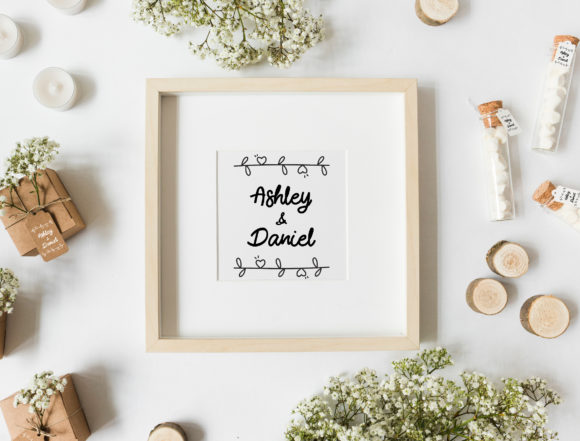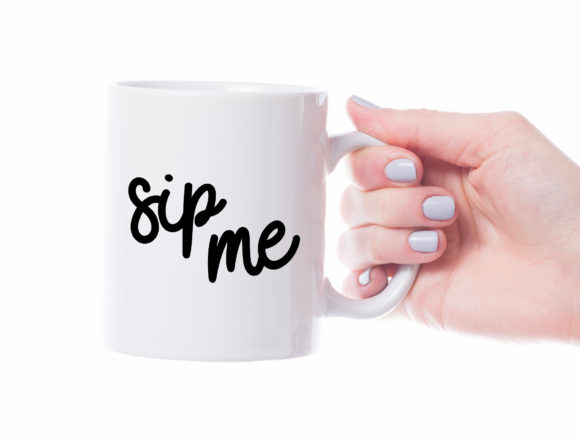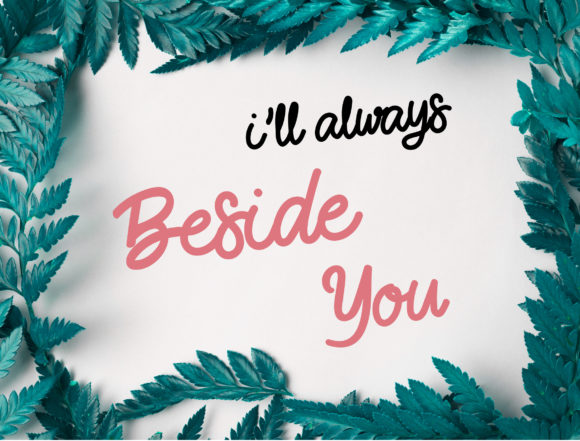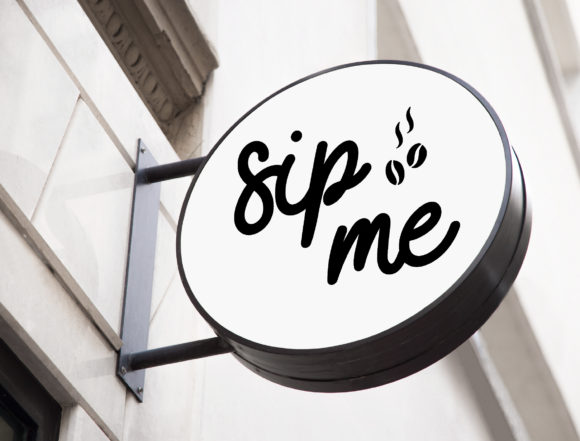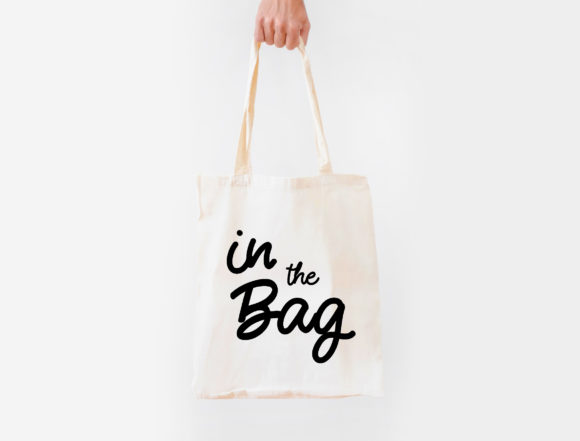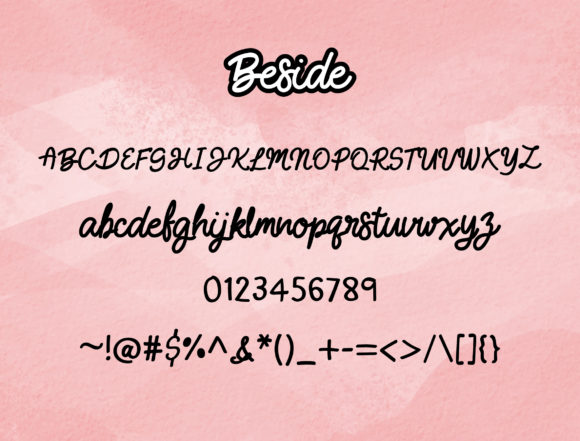
The Ultimate Guide to Beside Font: Adding a Touch of Whimsy to Your Designs
I’ll never forget the time I was working on a project for a client who wanted a font that was fun, quirky, and authentic. I had spent hours scouring the internet for the perfect font, but nothing seemed to fit the bill. That was until I stumbled upon Beside Font. This enchanting handwritten font has been a game-changer for my designs, and I’m excited to share my experience with you.
An Honest Review of Beside Font
So, what makes Beside Font so special? Let’s dive into the good stuff!
- ✨ Unique and quirky personality: Beside Font has a one-of-a-kind charm that will add a touch of whimsy to any design.
- ✅ Highly legible: Despite its playful nature, Beside Font is surprisingly easy to read, making it perfect for body text and headlines.
- 💫 Versatile: This font can be used for a wide range of projects, from branding and advertising to packaging and digital media.
Of course, no font is perfect, and Beside Font has a few small quirks to be aware of:
- 🤔 Limited use of uppercase letters: While the uppercase letters are beautiful, they’re best used sparingly to avoid overwhelming the design.
One of the standout features of Beside Font is its OpenType features and glyphs. These allow you to customize your text and add an extra layer of creativity to your designs. Here are some tips for getting the most out of Beside Font’s OpenType features:
- Experiment with Stylistic Alternates to add variation to your text.
- Use Glyphs to add decorative elements to your design.
- Take advantage of Ligatures to create a more natural, handwritten look.
The Story Behind Beside Font
Beside Font was designed with the intention of capturing the essence of handwritten text. The designer, who wanted to remain anonymous, drew inspiration from everyday conversations and the quirks of human communication. The result is a font that’s both authentic and enchanting.
| What makes Beside Font so special? | Beside Font’s unique and quirky personality, combined with its high legibility and versatility, make it a standout font. |
| Is Beside Font difficult to read? | No, Beside Font is surprisingly easy to read, making it perfect for body text and headlines. |